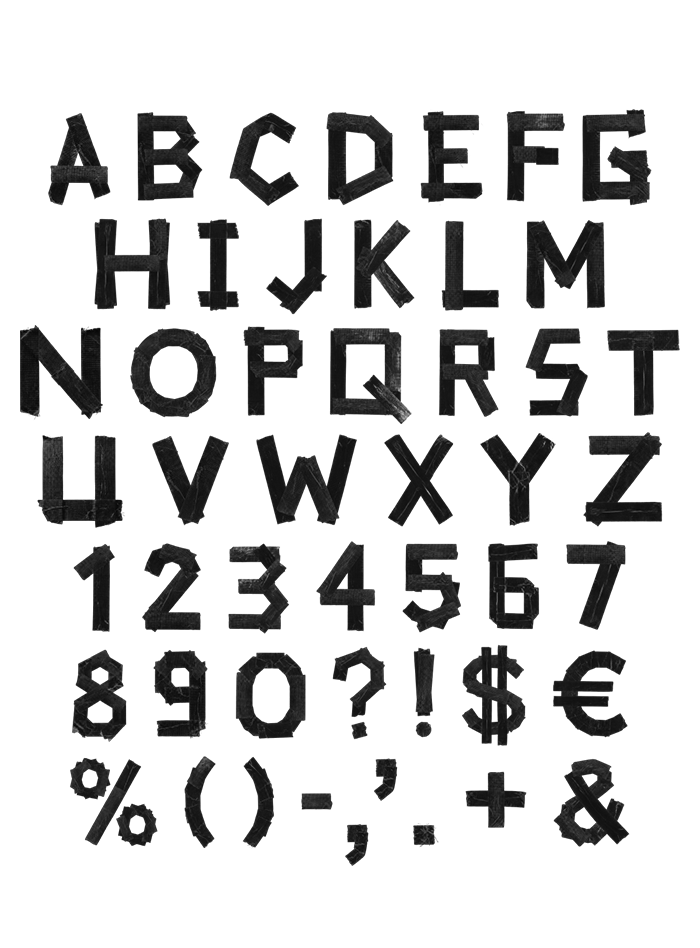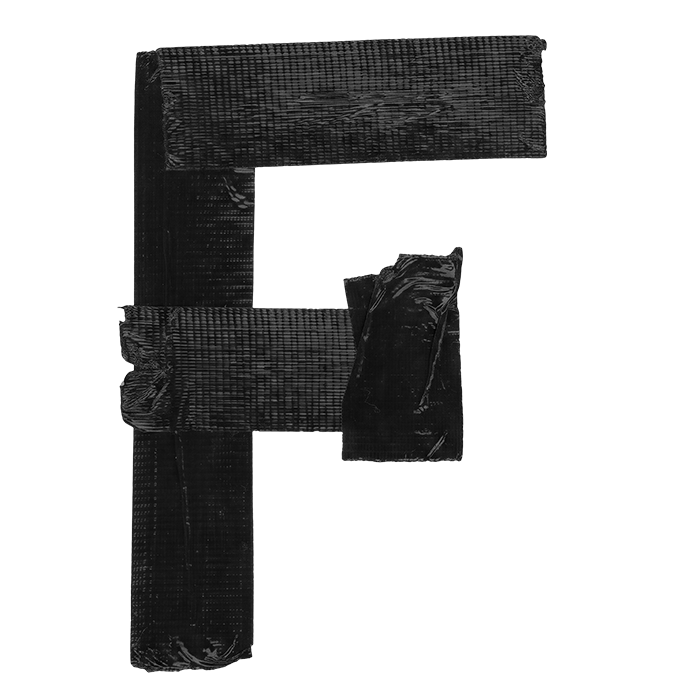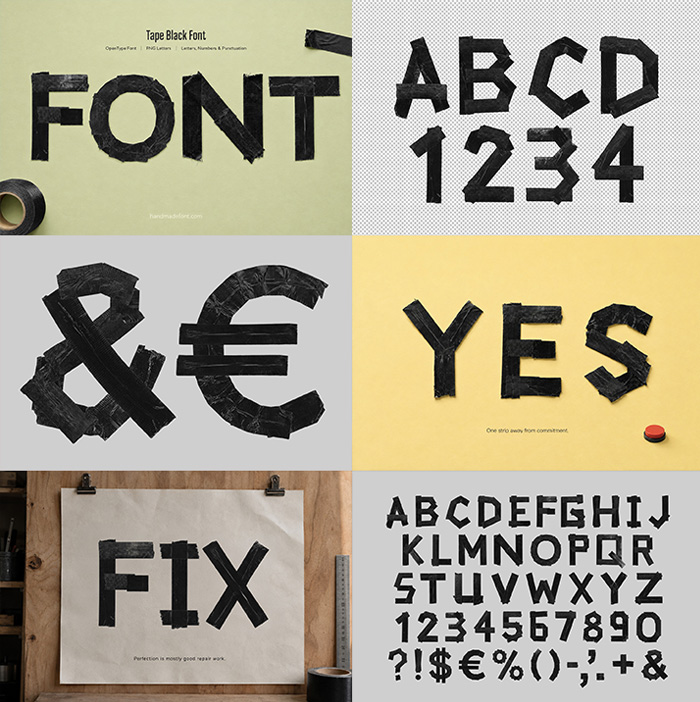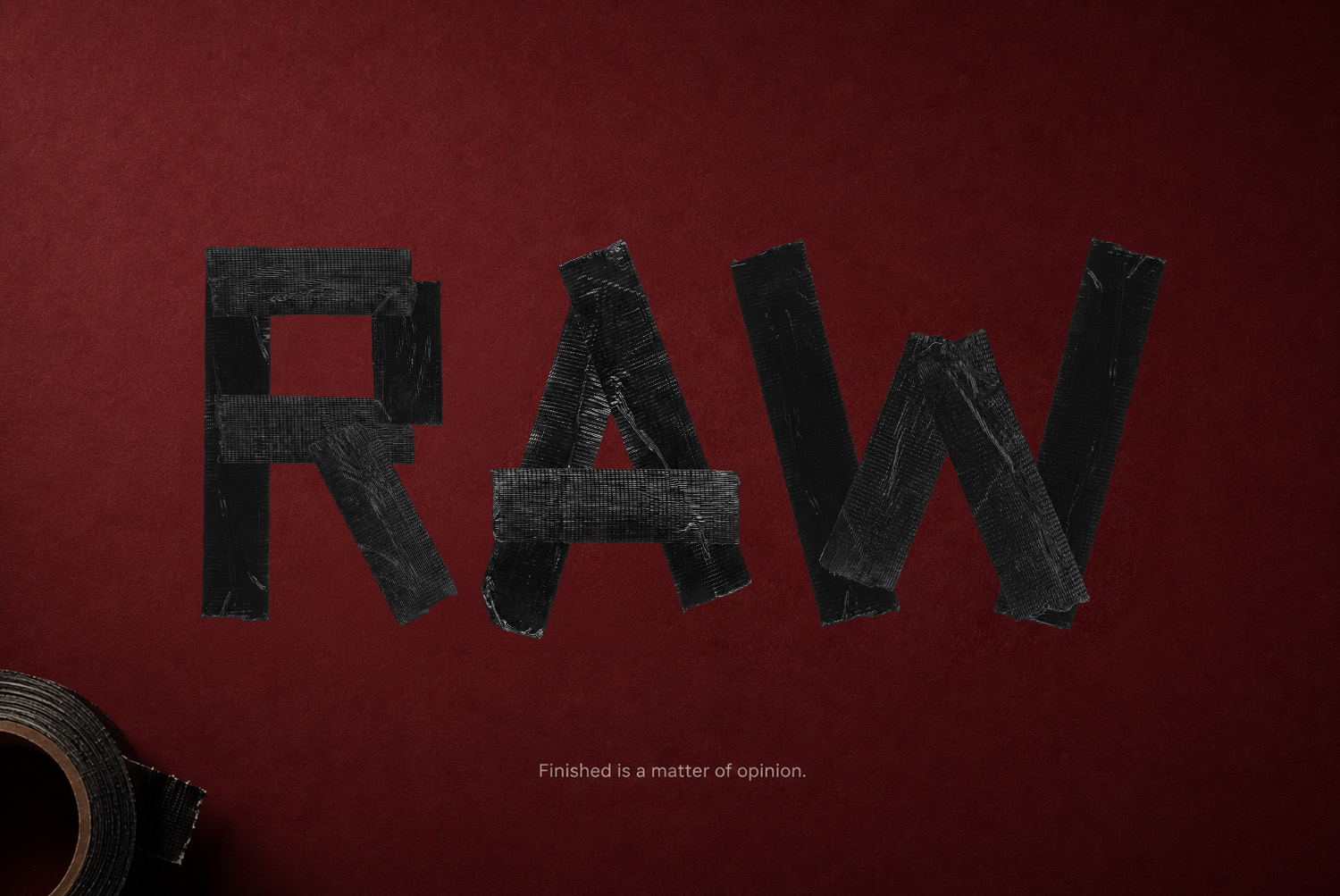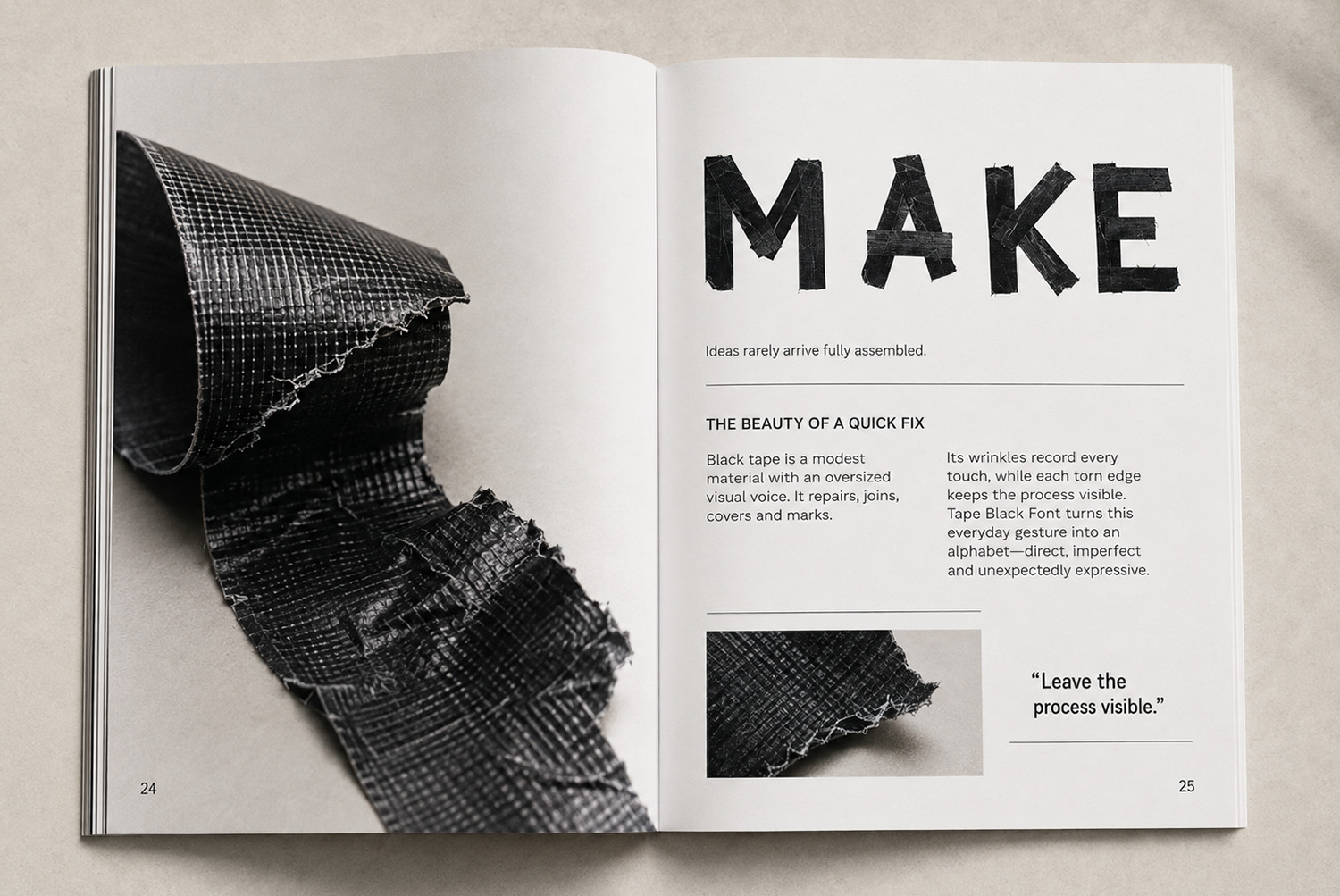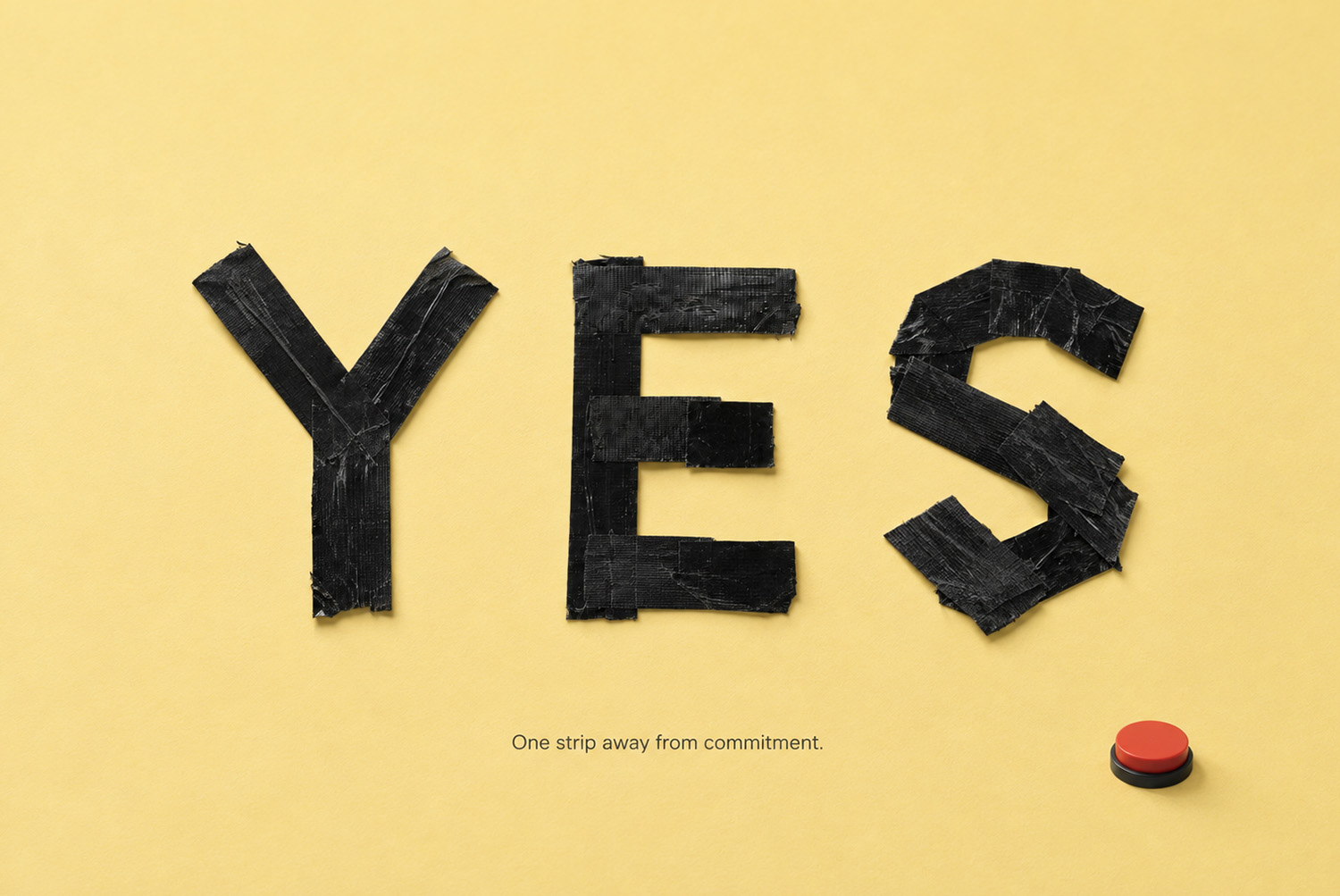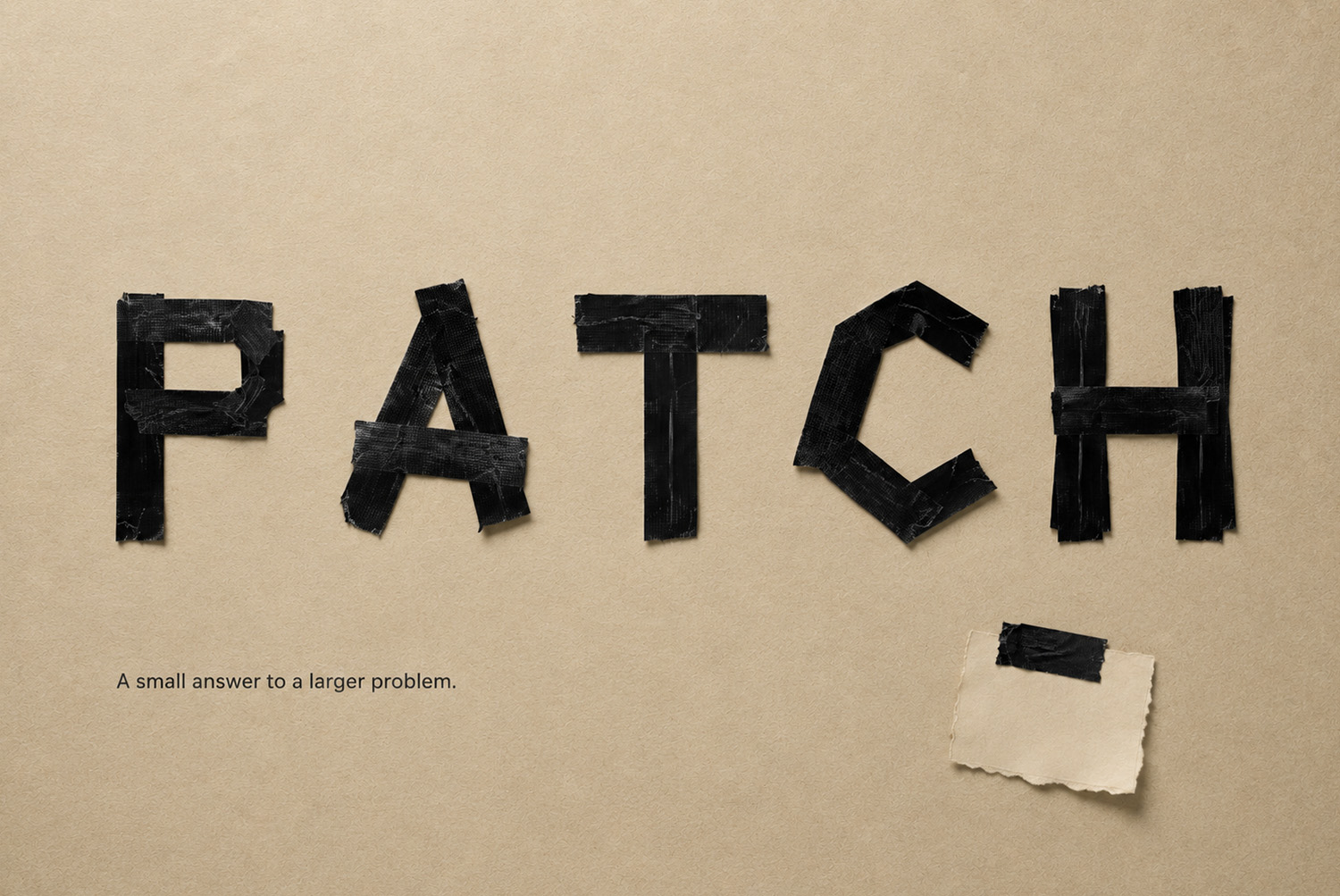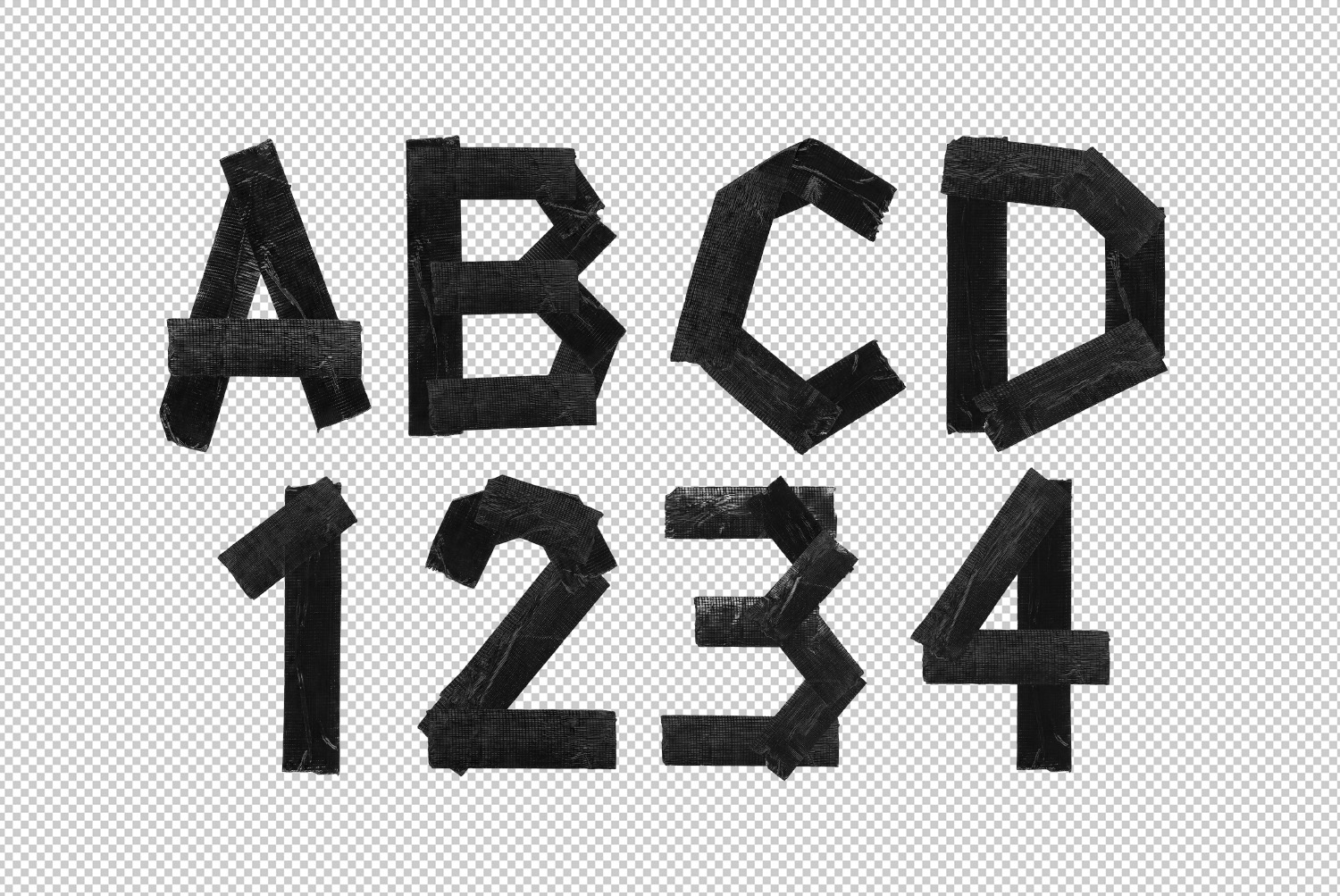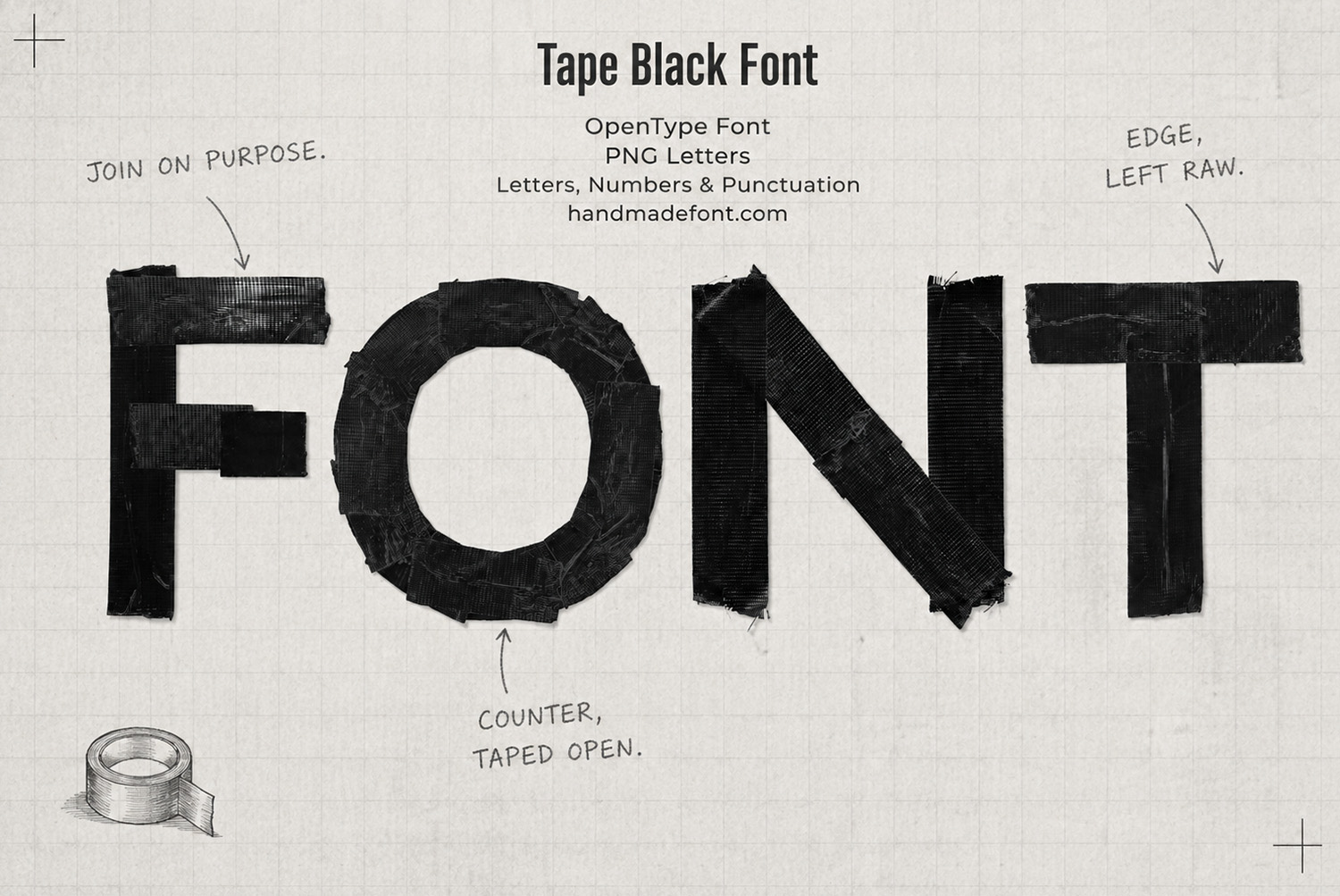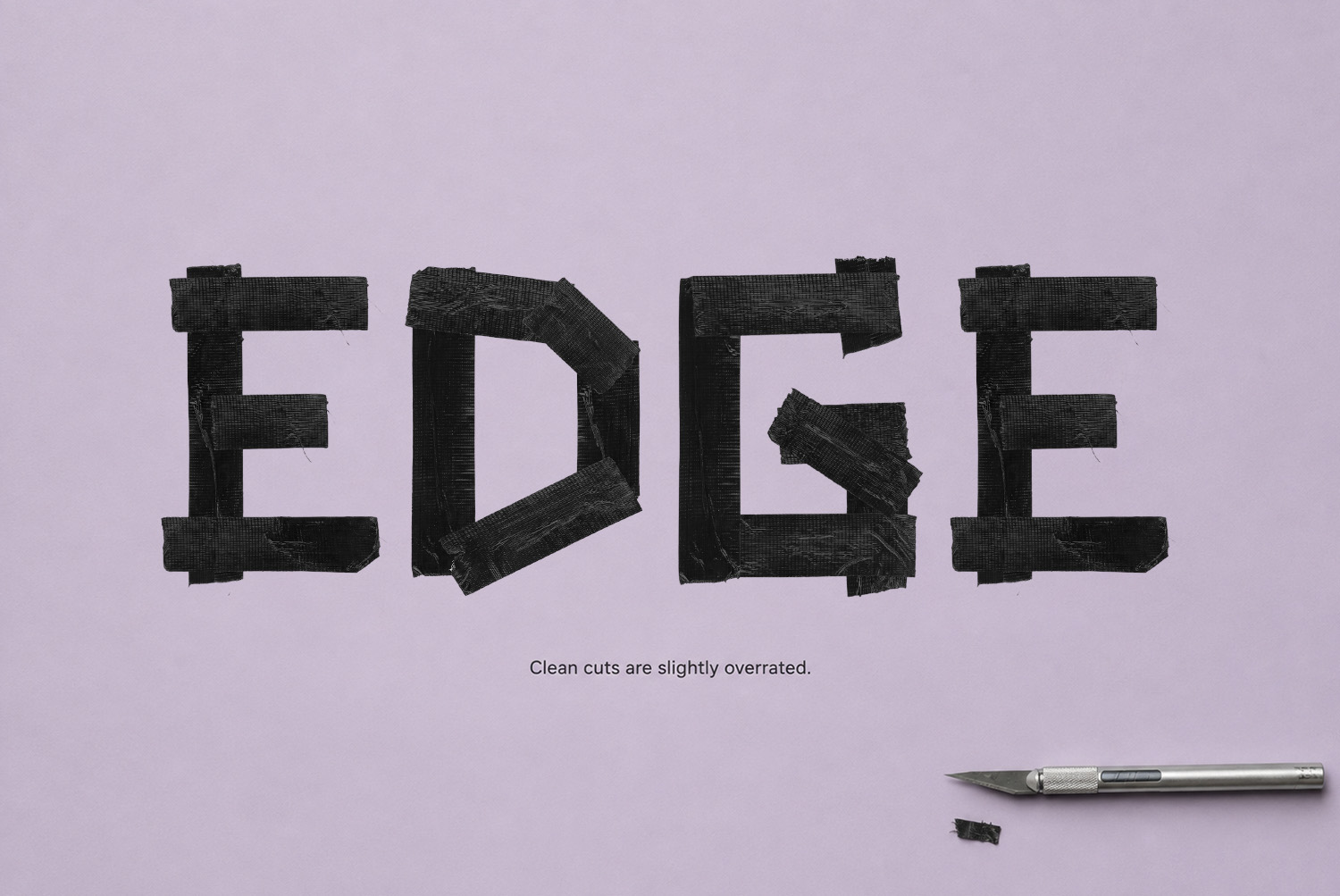
Tape Black Font – Handmade Typeface Made from Black Tape
Tape Black Font turns simple strips of black tape into a bold and expressive typeface. Rough folds, overlaps, torn edges and realistic tape textures give every character a handmade, slightly rebellious personality. The set includes an OTF font plus individual PNG letters on transparent backgrounds, making it ideal for posters, album covers, editorial layouts, branding, packaging and experimental typography.
Tape Black Font Made from an Everyday Material
Tape Black Font transforms an ordinary roll of black tape into a distinctive typographic system. Instead of smooth digital contours, the characters embrace folds, overlaps, uneven edges and subtle material imperfections. Because of these details, every letter gets an immediate handmade quality, so the alphabet feels more like a collection of graphic objects than a conventional typeface.
The deep black surface creates strong silhouettes, while realistic tape textures add depth and character without overwhelming the letterforms. As a result, the outcome is bold, tactile and deliberately imperfect.
Raw Black Tape Lettering
Each character explores how strips of tape can bend, cross, overlap and connect to create recognizable letters. Still, slight irregularities remain visible throughout the alphabet, giving Tape Black Font its energetic visual rhythm.
Consequently, this raw construction makes the typeface particularly effective when typography needs to become the main visual element. It can also feel underground, experimental, rebellious or contemporary, depending on the surrounding design.
Tape Black Font hero image showing bold letters made from black tape strips
Typography with a Handmade Attitude
Overall, the strong black forms make Tape Black Font suitable for posters, music artwork, fashion graphics, editorial design, branding, packaging, event promotion and experimental visual identities. Similarly, its imperfect material character works especially well in projects that need something more physical and expressive than polished digital lettering.
Handmade Tape Typography Tape Black Font with bold letterforms made from realistic black tape
Tape Black Font – Black Tape Lettering
Tape Black Font characters shaped from strips of textured black tape
Tape Black Font – Experimental Typography
Tape Black Font – Bold Display Lettering
Creative Tape Black Font using expressive black tape shapes and tactile textures
Tape Black Font – Handmade Black Letters
Tape Black Font – Textured Tape Typography
Tape Black Font – Contemporary Display Font
Tape Black Font – Raw Material Lettering
Tape Black Font – Creative Object Typography
Tape Black Font – Graphic Tape Alphabet
Tape Black Font letters created from folded black tape in an experimental typographic layout
Tape Black Font alphabet featuring letters made from folded black tape